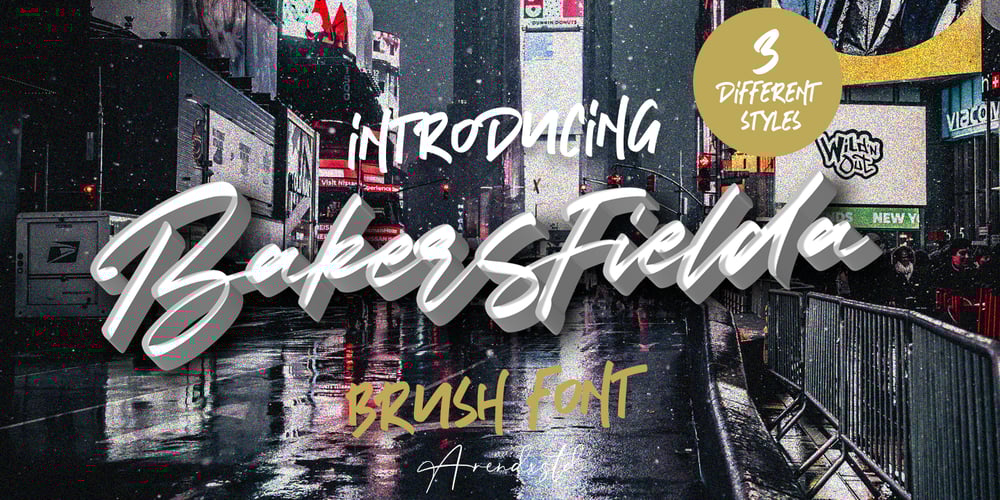
Bakersfield Font Family was designed by Asep Rendi and published by Arendxstudio. Bakersfield contains 3 styles and family package options. Bakersfield is a combination font with 3 different style variations that will make you feel easy to apply in your various design projects. Bakersfield comes with OpenType features such as stylistic alternates, stylistic sets and ligatures. Bakersfield is perfect for logotypes, posters, badges, book covers, tshirt designs, packaging and much more.Features : • Character Set A-Z • Numerals & Punctuations (OpenType Standard) • Accents (Multilingual characters) • Ligature • Alternate